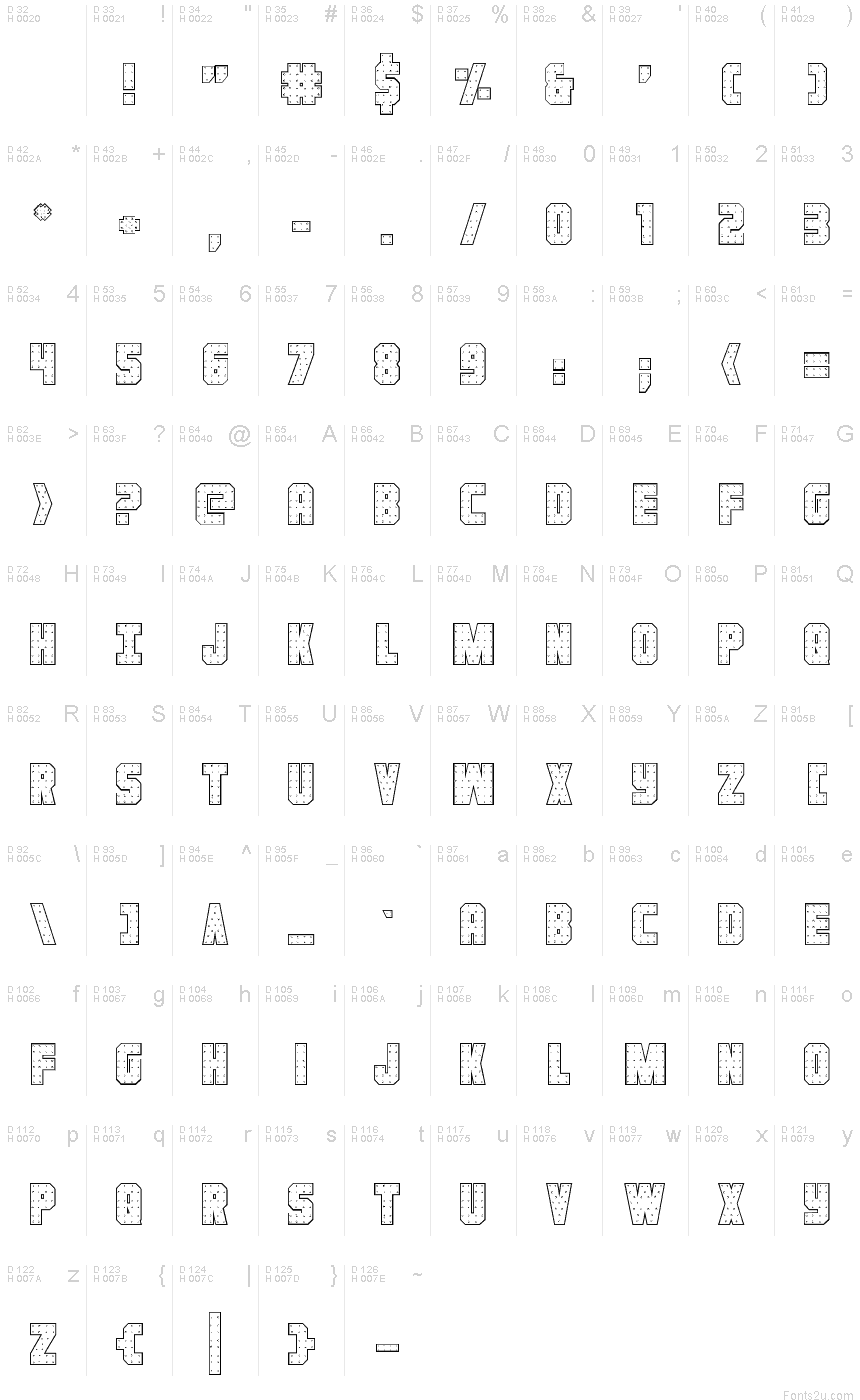
Iron Forge Outline by Daniel Zadorozny of Iconian Fonts is a free outlined techno display font with broad, angular capitals and an industrial plate-metal silhouette. Rivet-like marks pepper the interiors and reinforce the machine-cut finish.
Merchandise offers a convincing setting for this lettering, especially band shirts and gaming apparel where the studded surfaces can become part of the graphic itself, with posters and title cards extending the same hard-edged look. Its clearest audience is designers working in heavy metal, motorsport, combat games, and other entertainment built around machinery or impact.
Iron Forge Outline